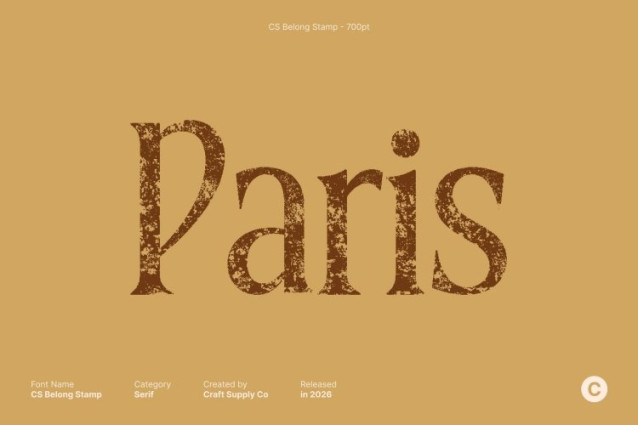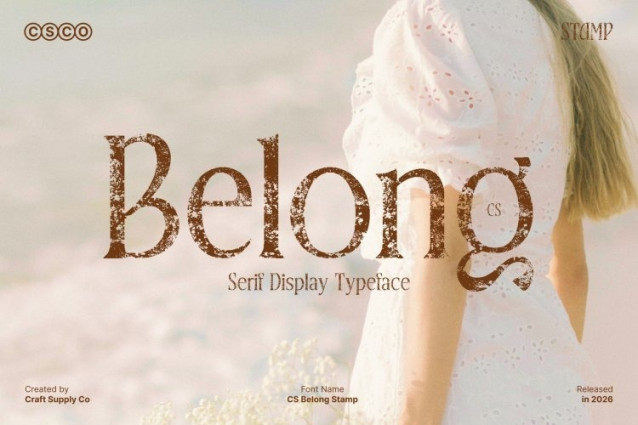
CS Belong Stamp Font
CS Belong Stamp Font This is an elegant serif font crafted to deliver a luxurious and sophisticated visual presence, enhanced by a distinctive stamp texture. Defined by graceful curves, elongated details, and sleek contemporary lines, this typeface balances modern polish with a subtle vintage character. The stamped finish adds artistic depth and warmth, elevating its high-end aesthetic.
Elongated Forms with Textured Grace
Its elongated letterforms and carefully sculpted curves create height, flow, and refined visual rhythm. The added stamp effect introduces gentle imperfections inspired by traditional print techniques, giving the font a tactile, expressive quality while preserving its elegance and readability.
Modern Luxury with Authentic Character
This font embodies contemporary luxury through clean structure and understated refinement. The elegant serifs and smooth transitions feel poised and confident, while the textured surface softens the precision with a handcrafted nuance. This harmony between clarity and character makes it versatile for refined and artistic layouts alike.
Ideal for Premium Branding and Editorial Design
Perfect for luxury branding, fashion editorials, packaging, beauty campaigns, and upscale marketing materials, this font enhances headlines, logos, and body text with sophistication and personality. Its fusion of modern elegance and vintage stamp texture ensures a distinctive, memorable presence.